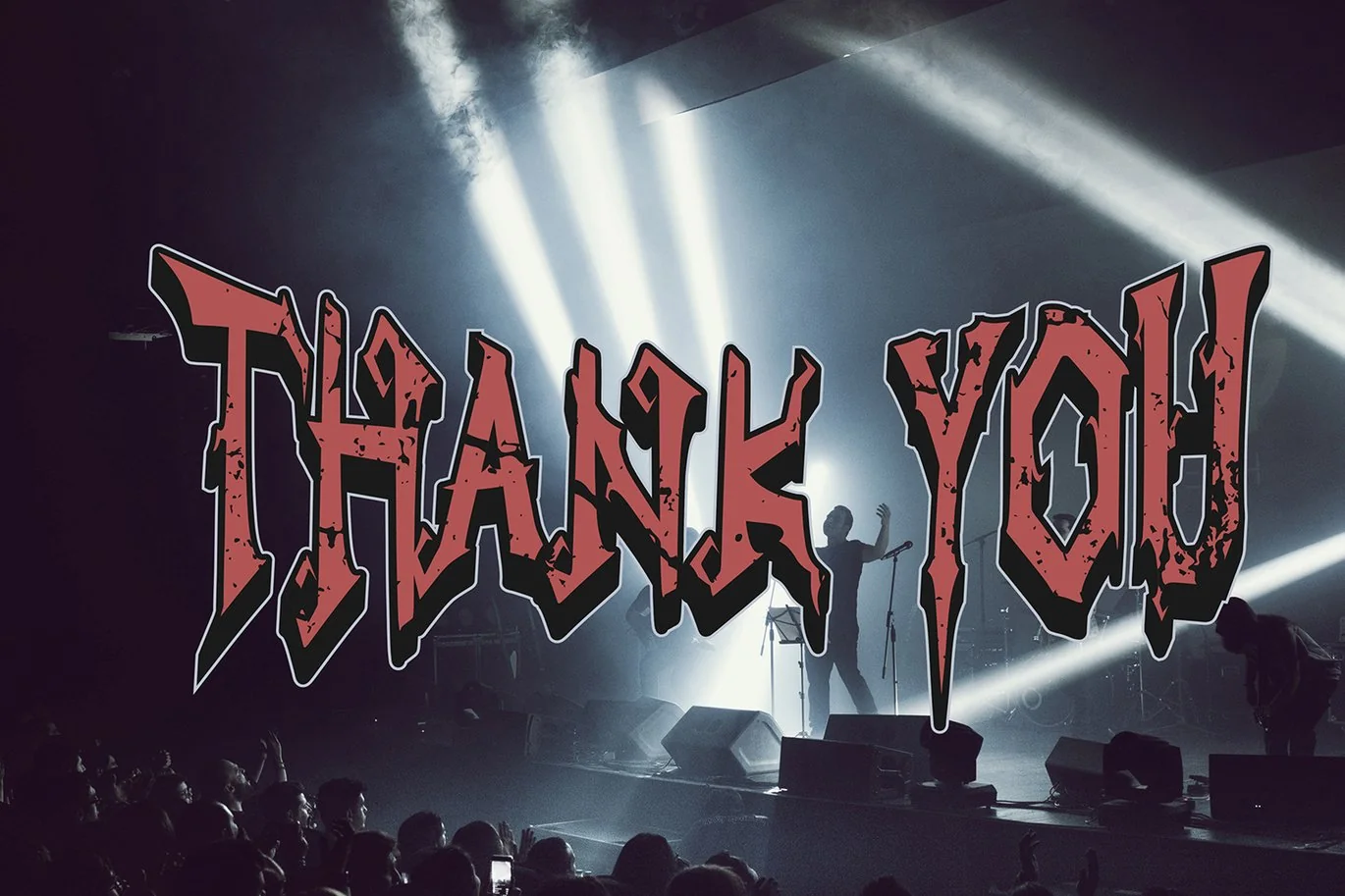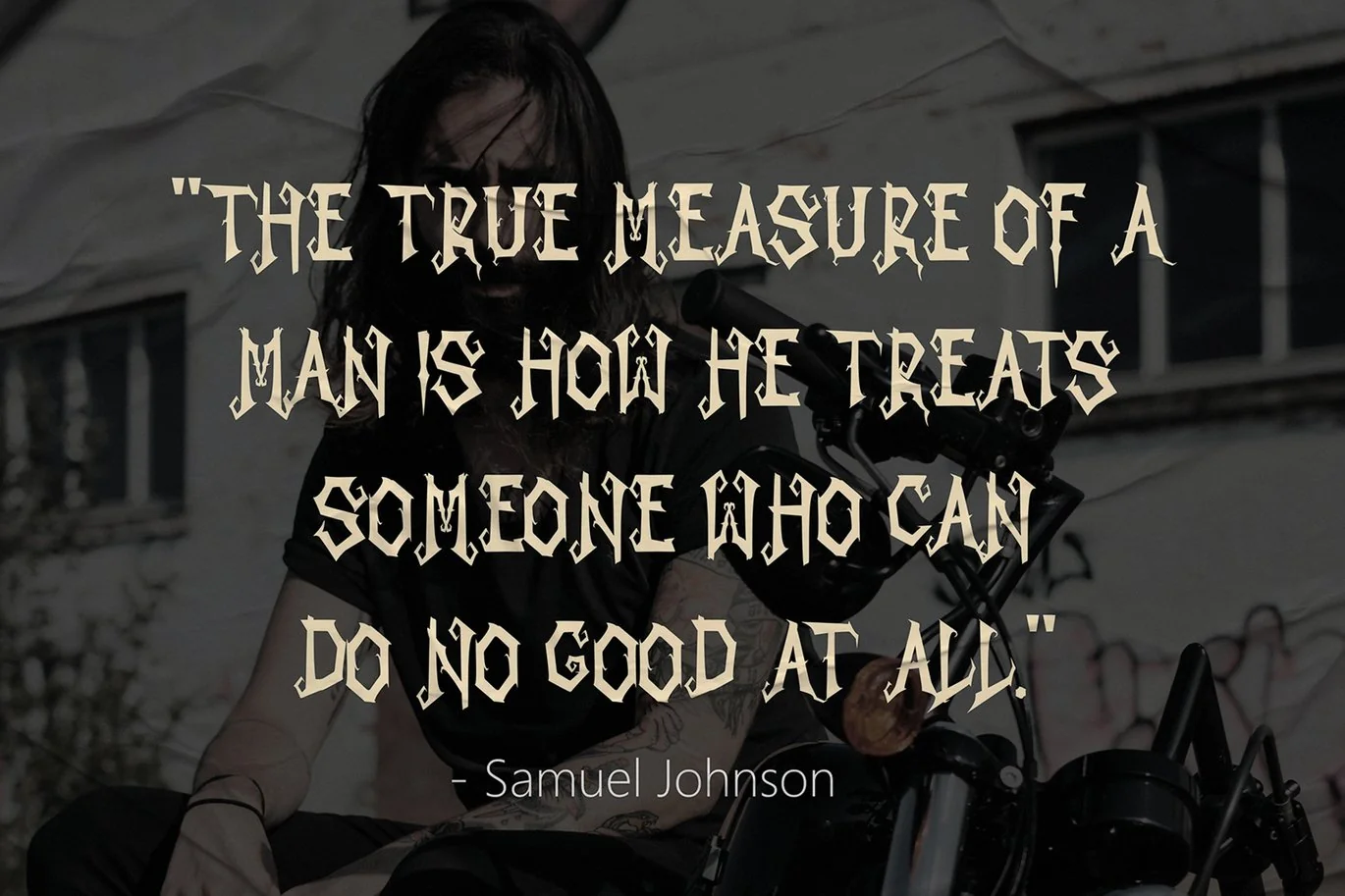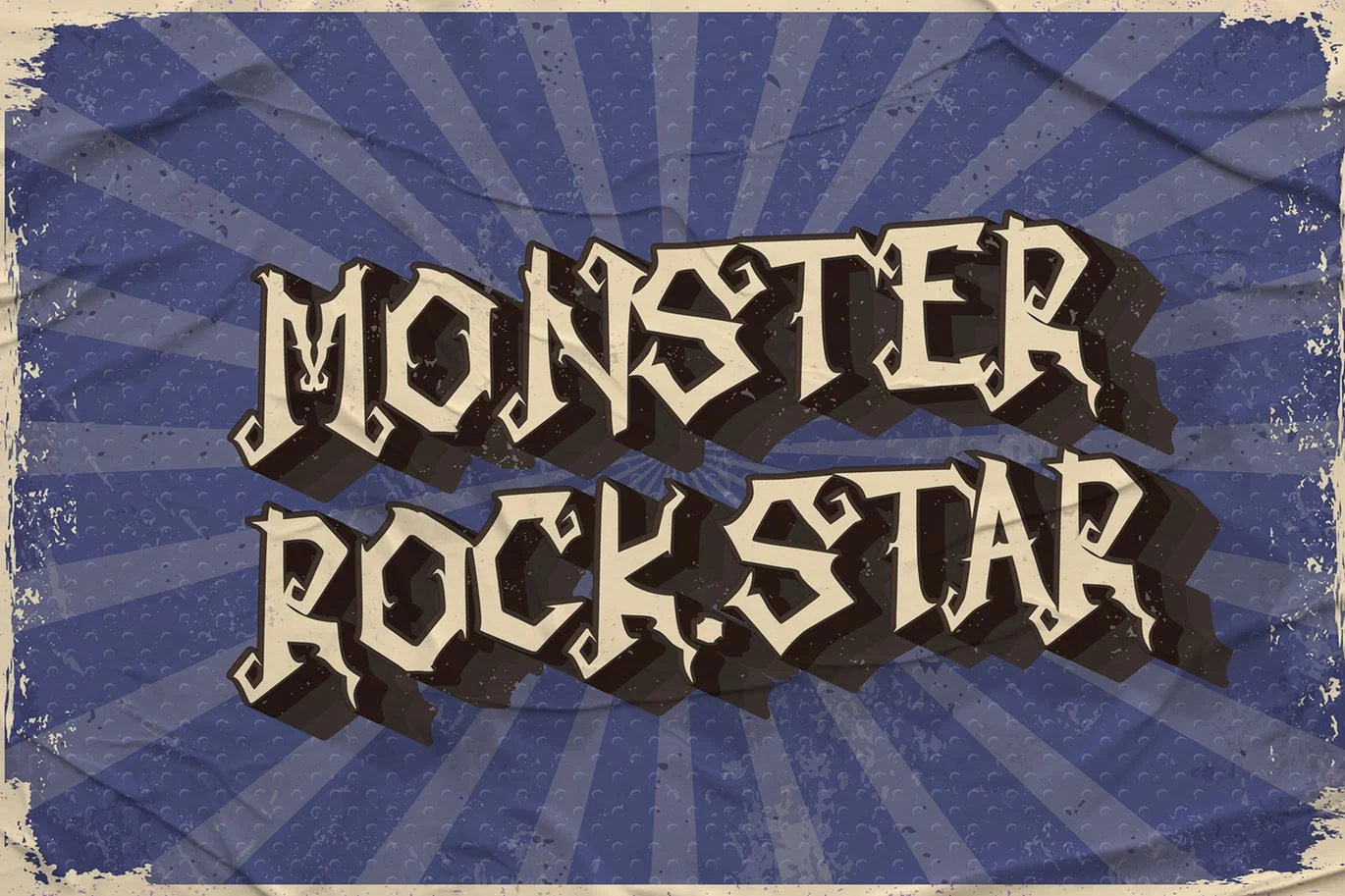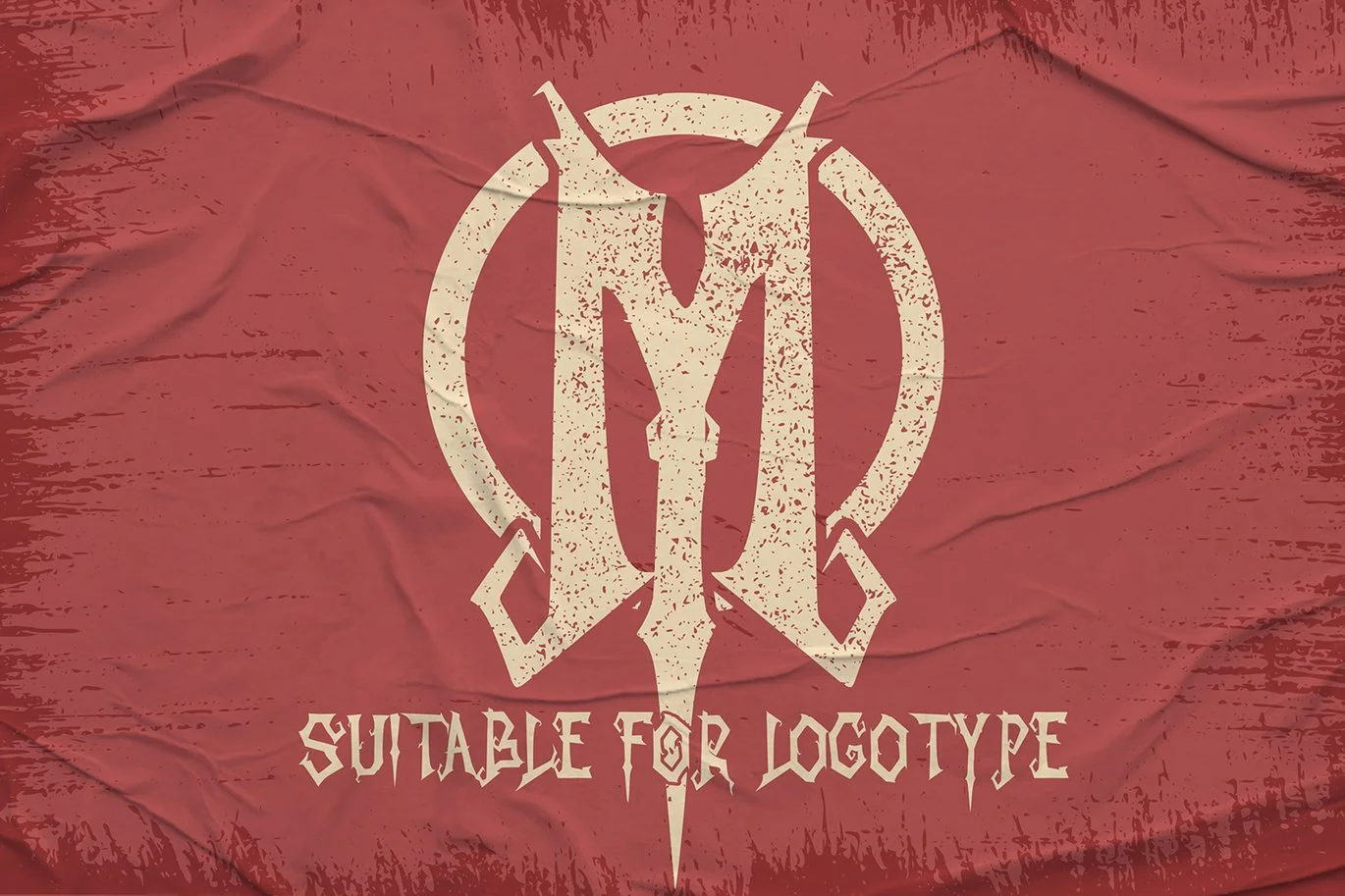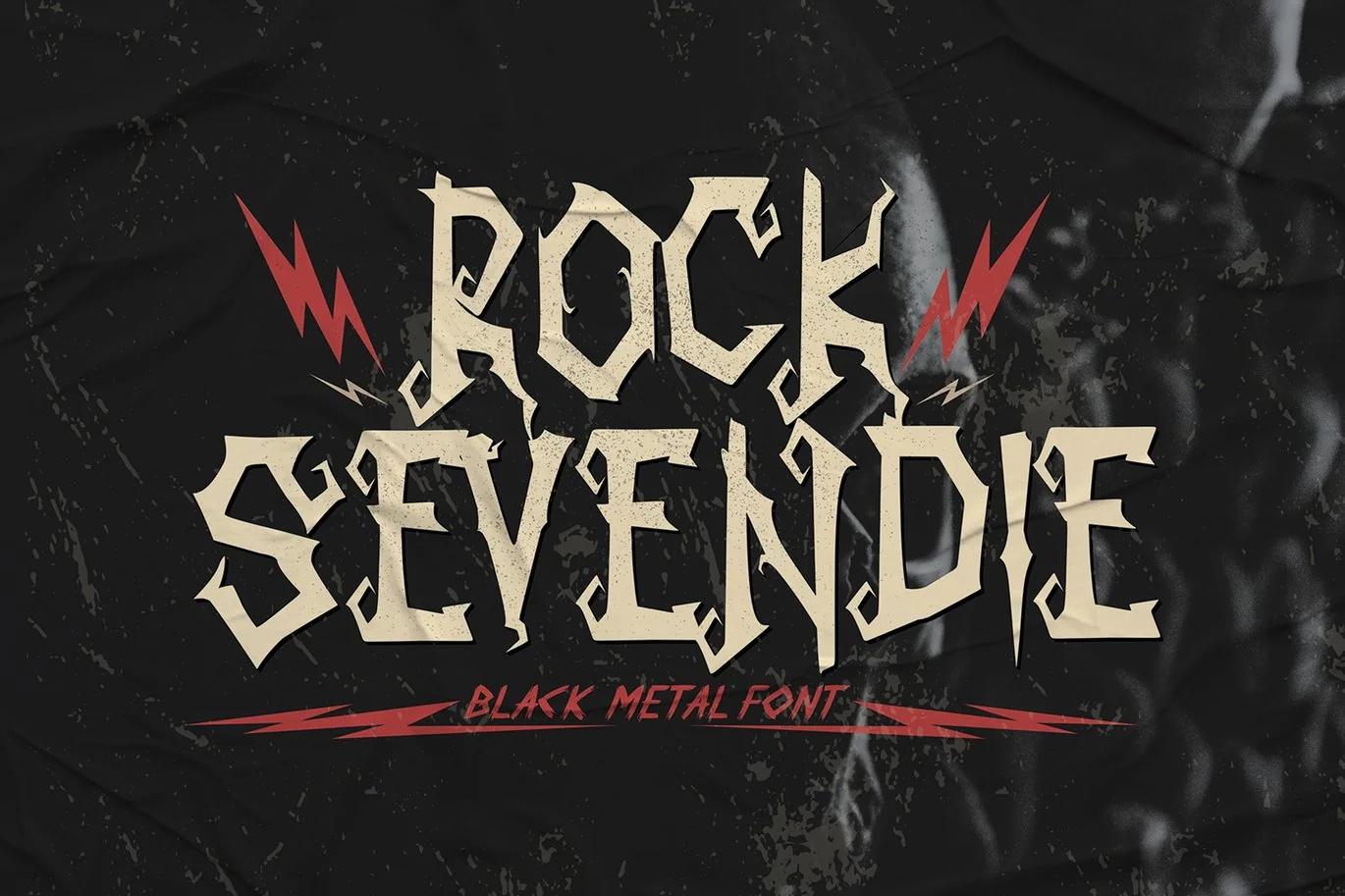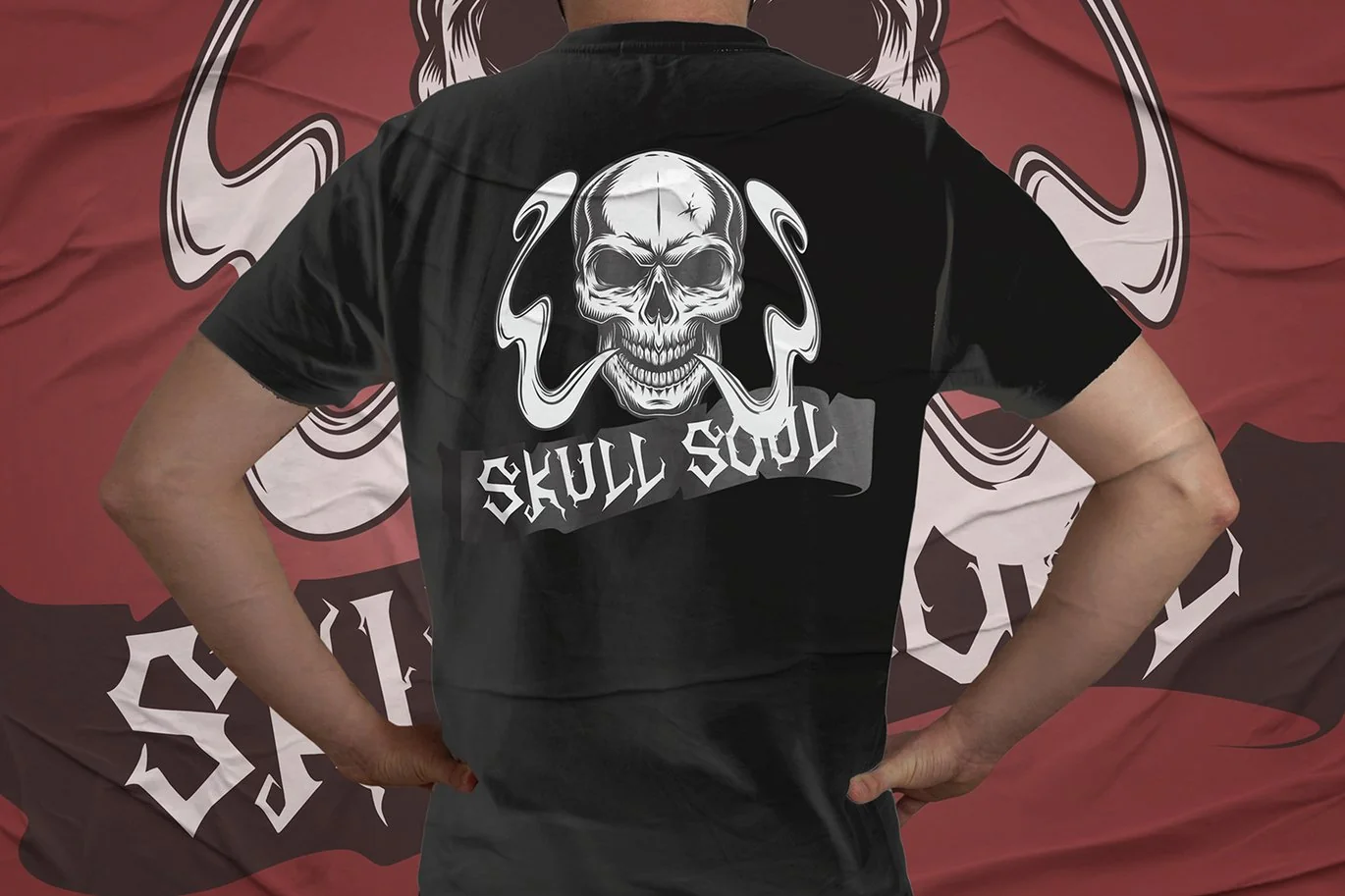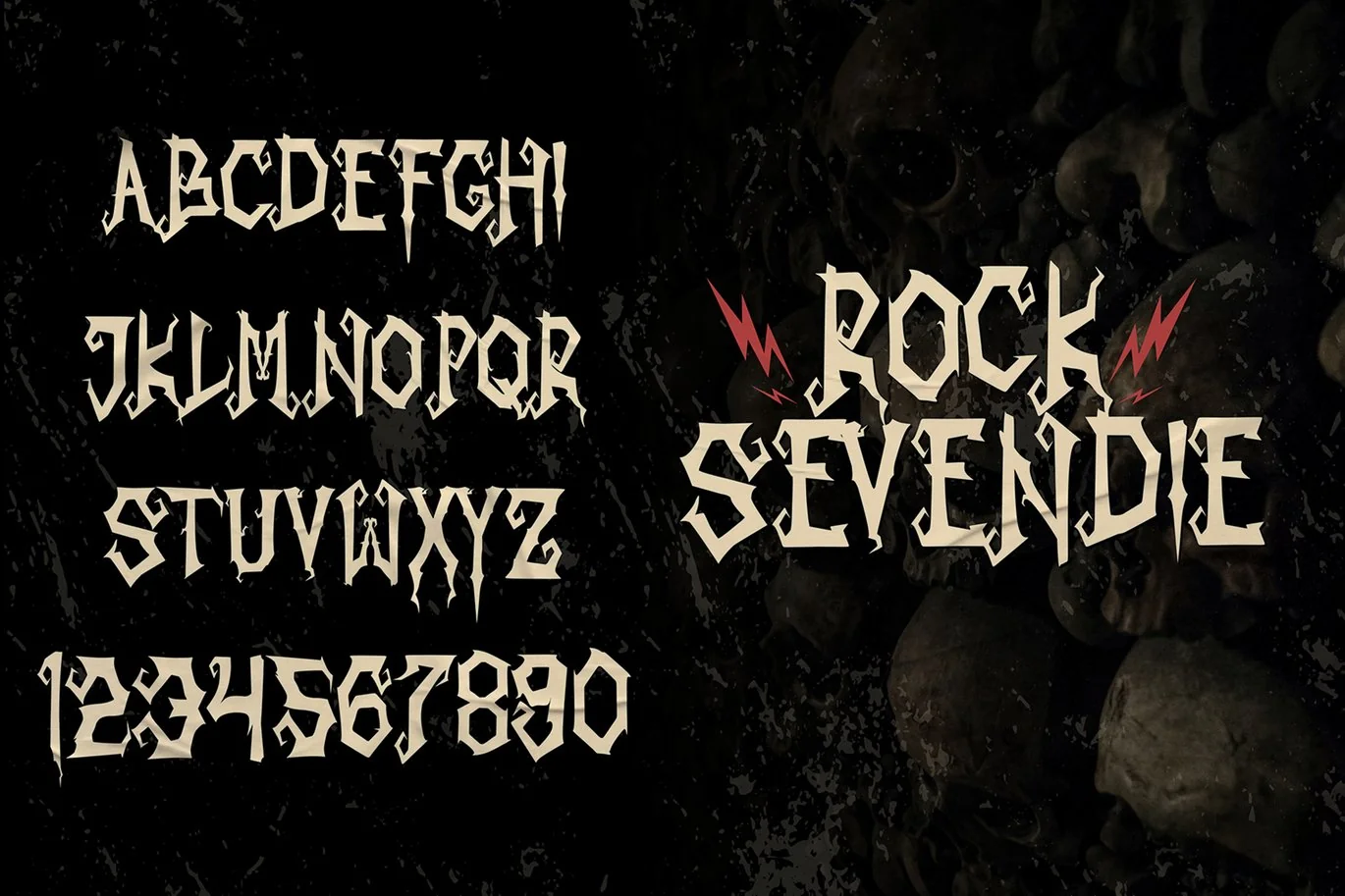
Rock Sevendie – Black Metal Font
Rock Sevendie is a font that has a metal character, and has a simple look, with many characters, and multilingual support. better used for band logos, music events, banners, posters, advertising, and others.